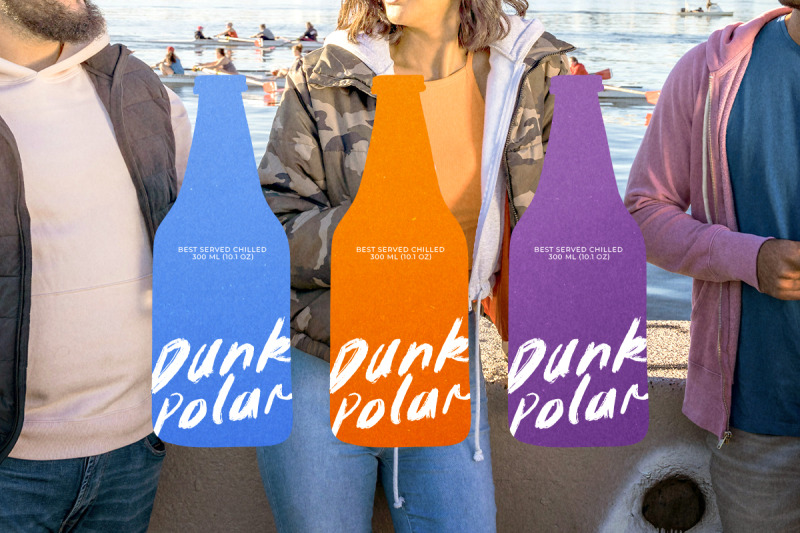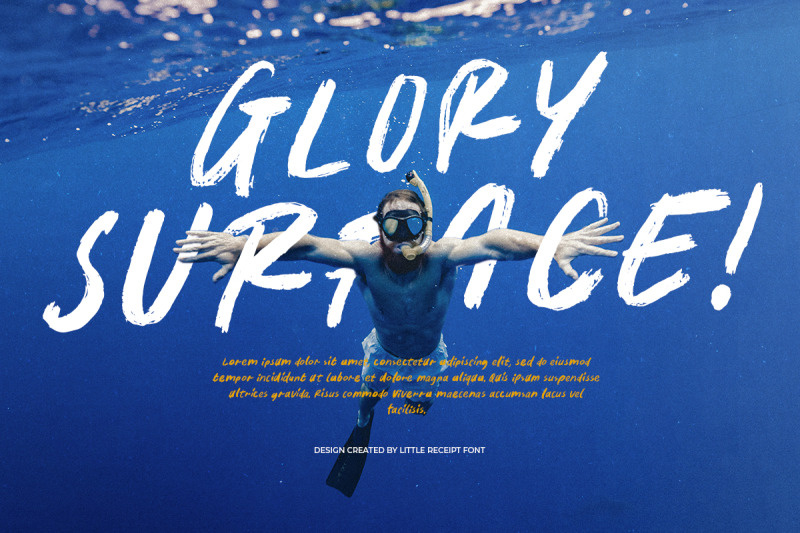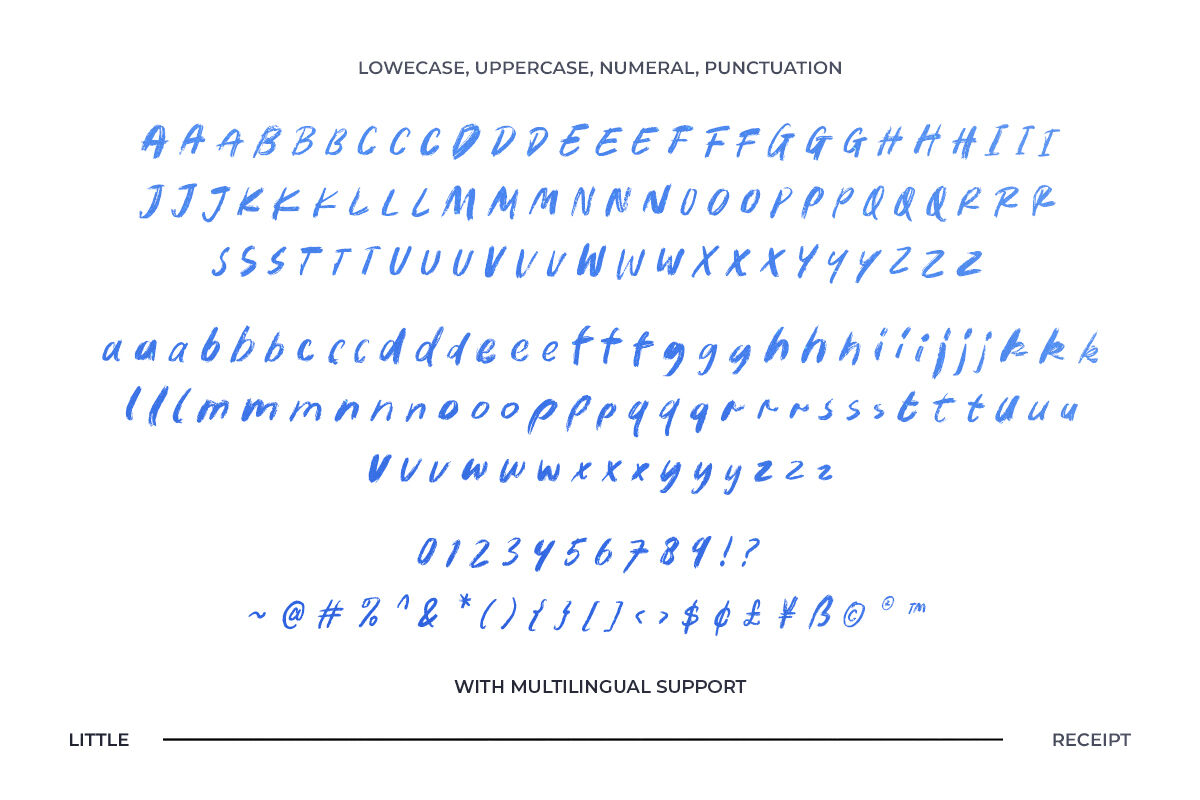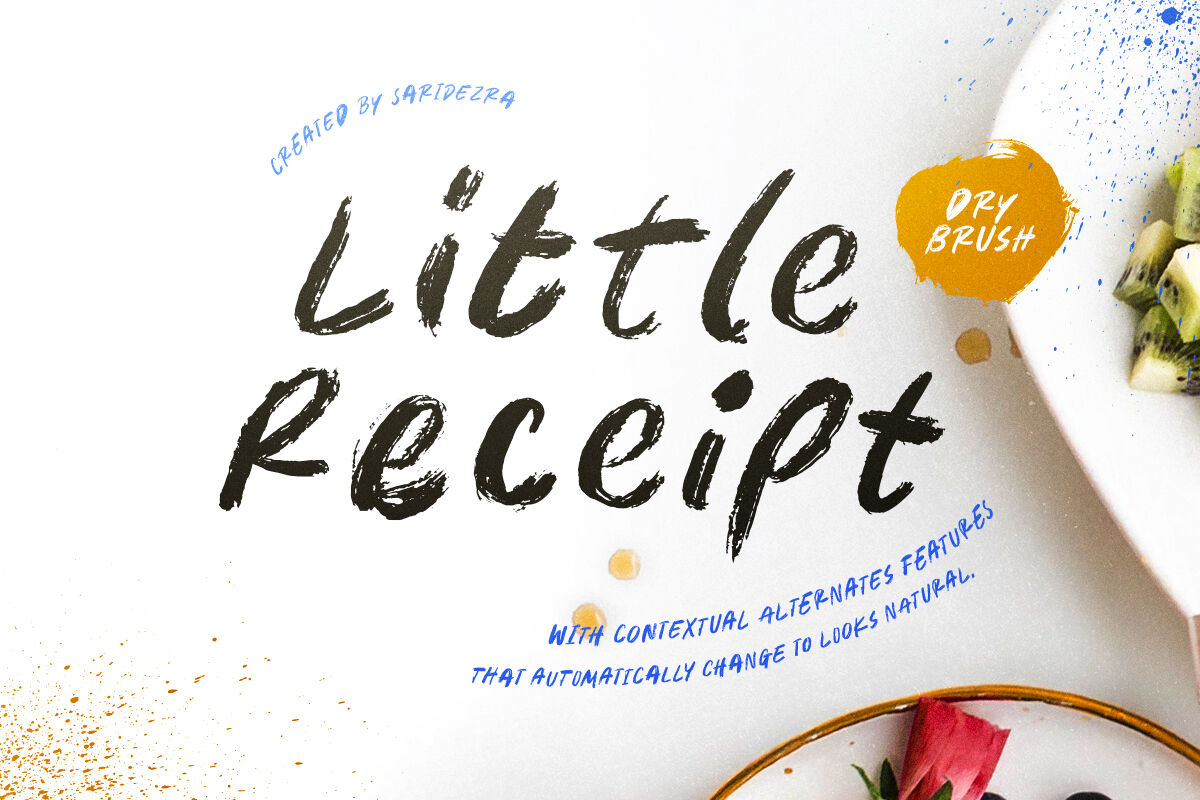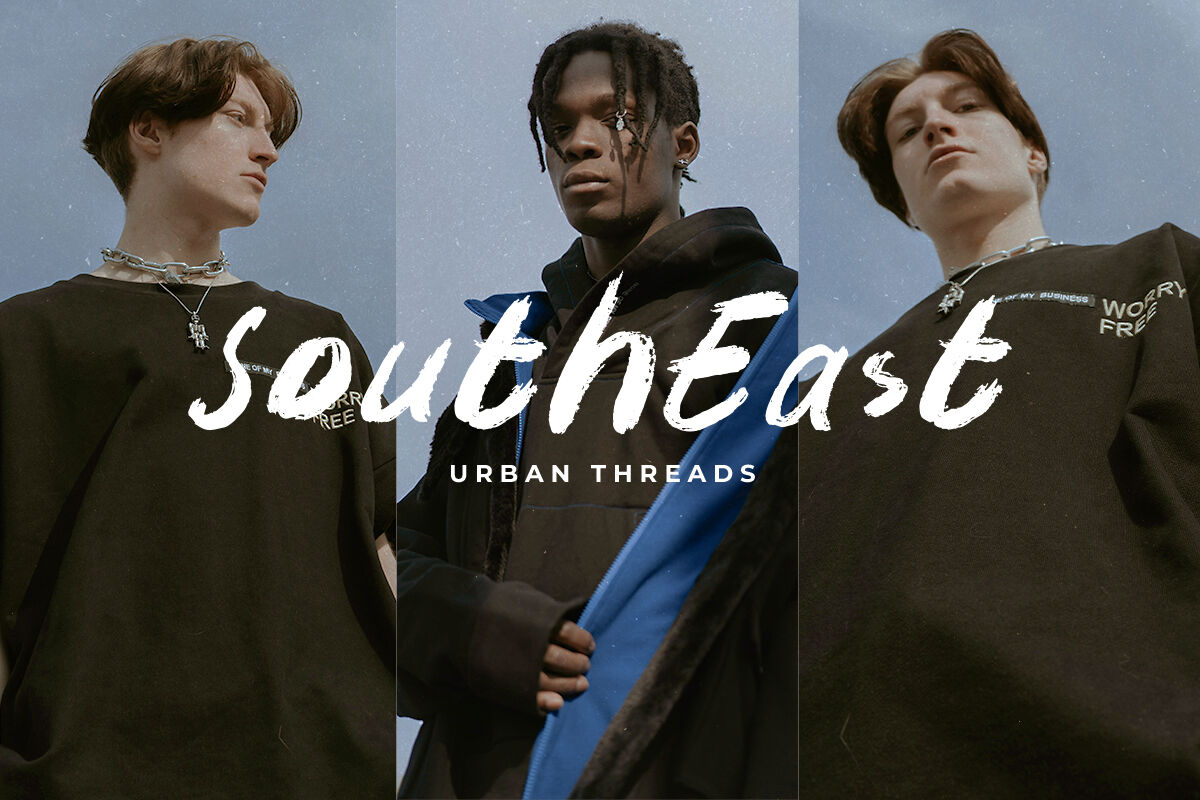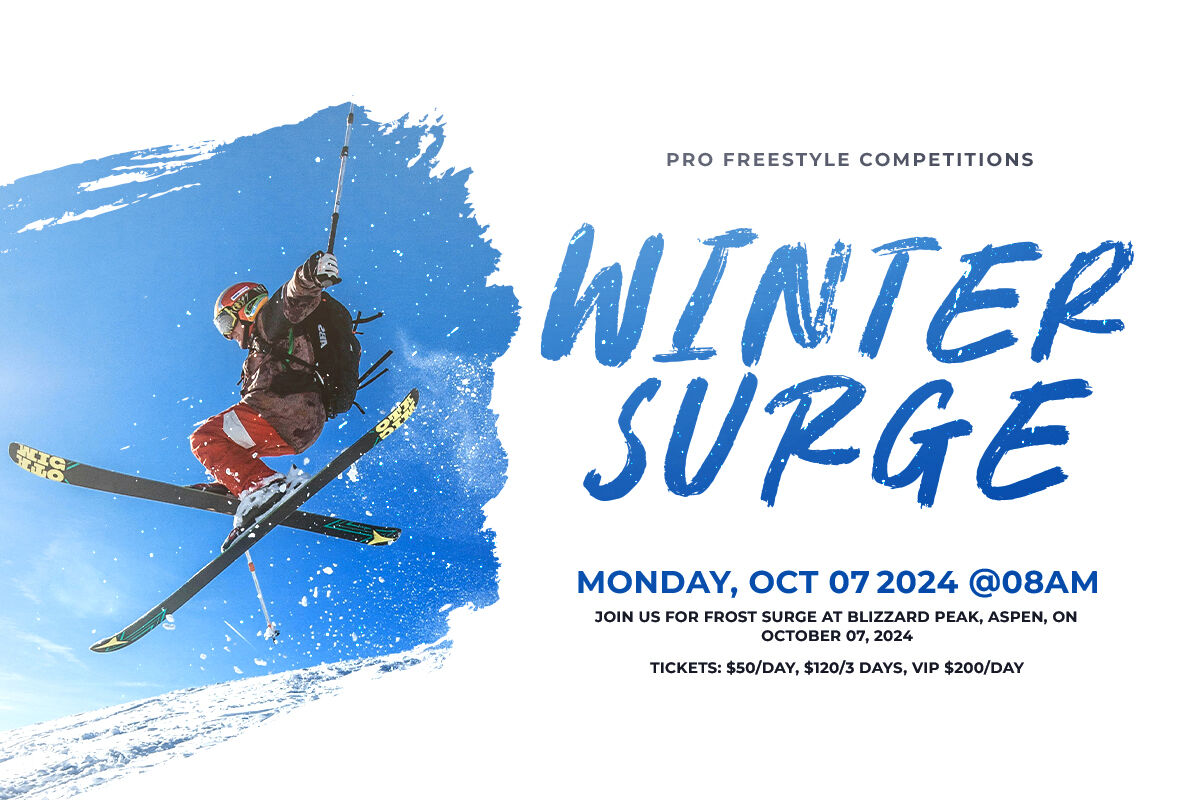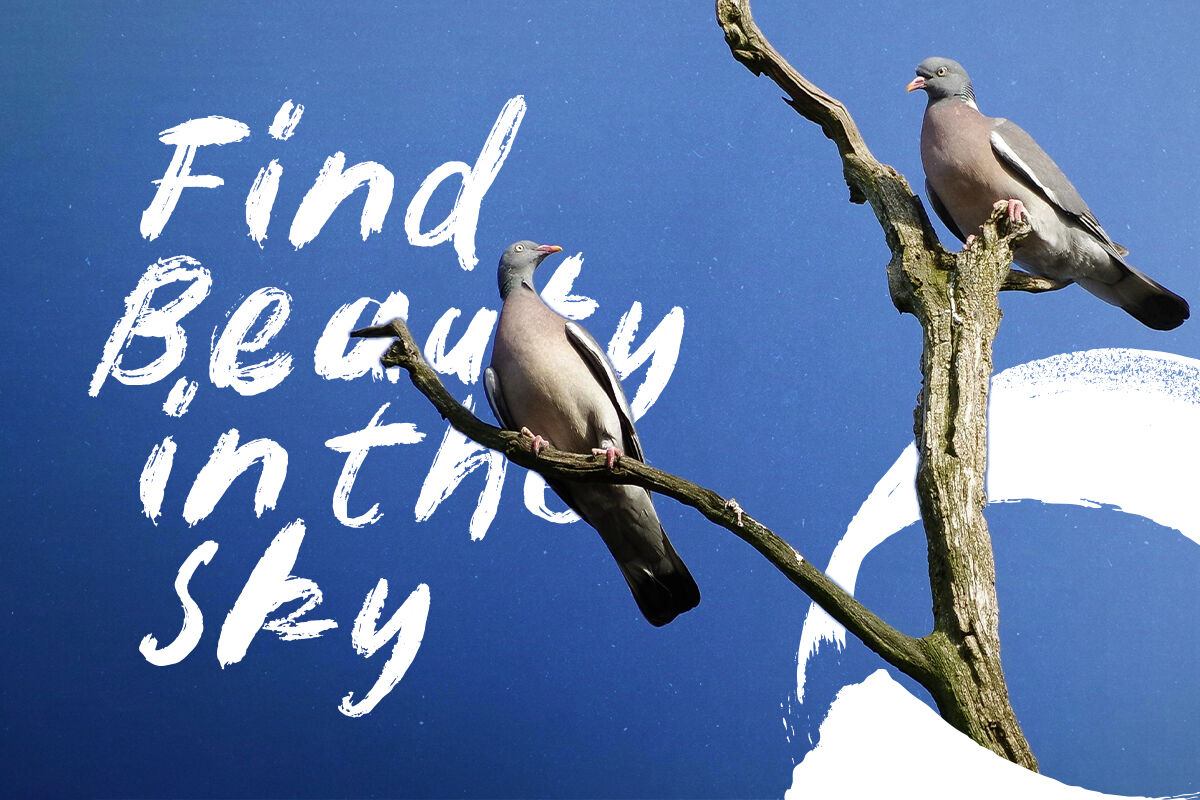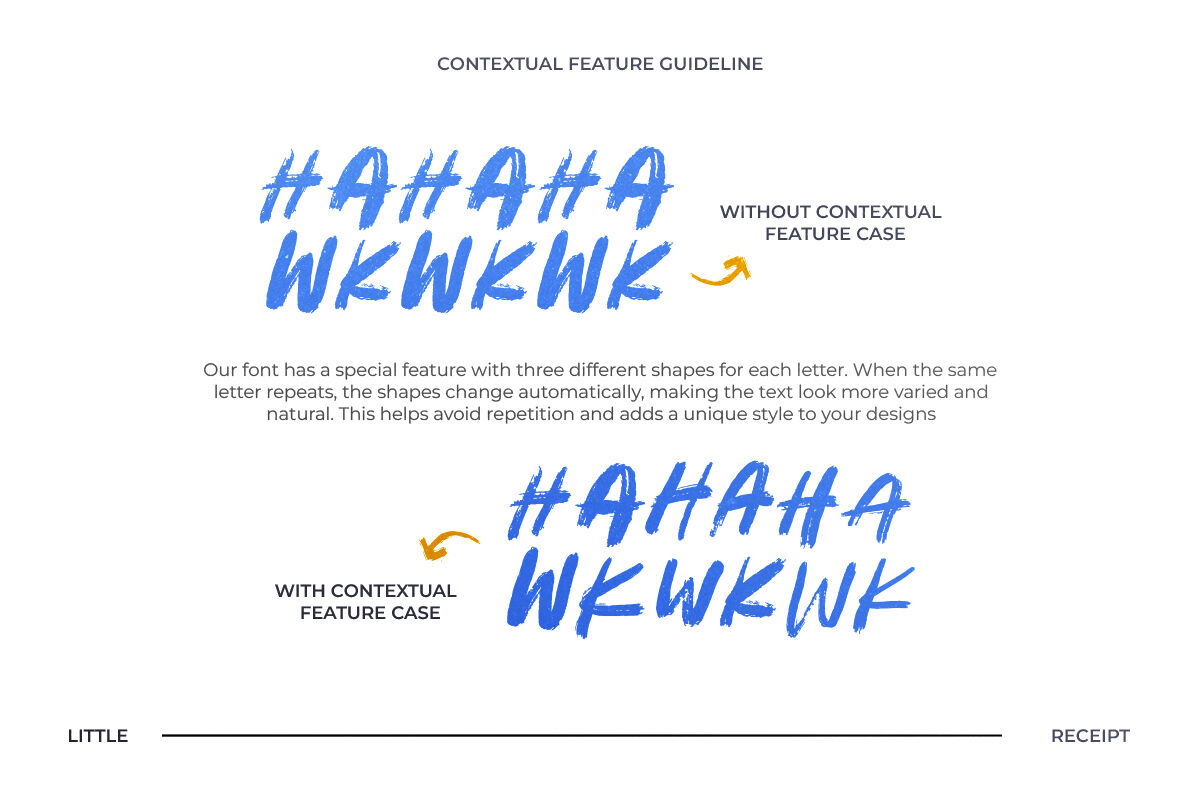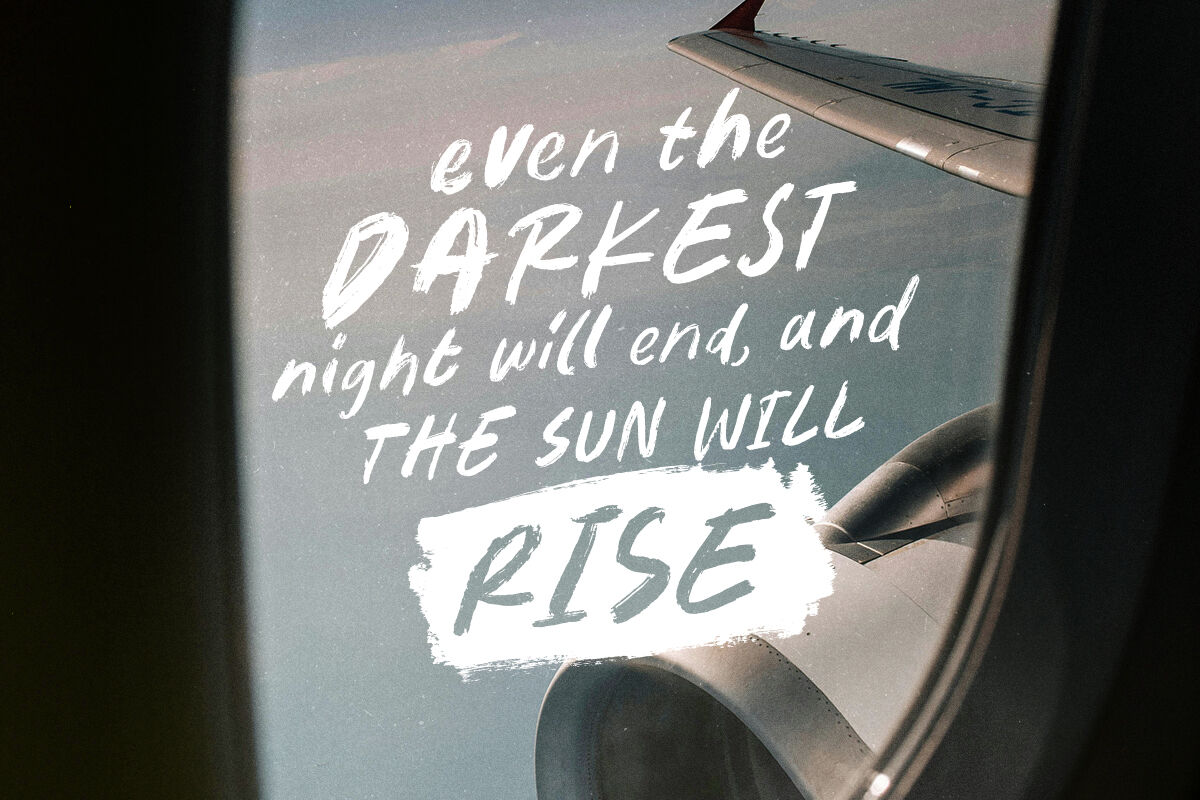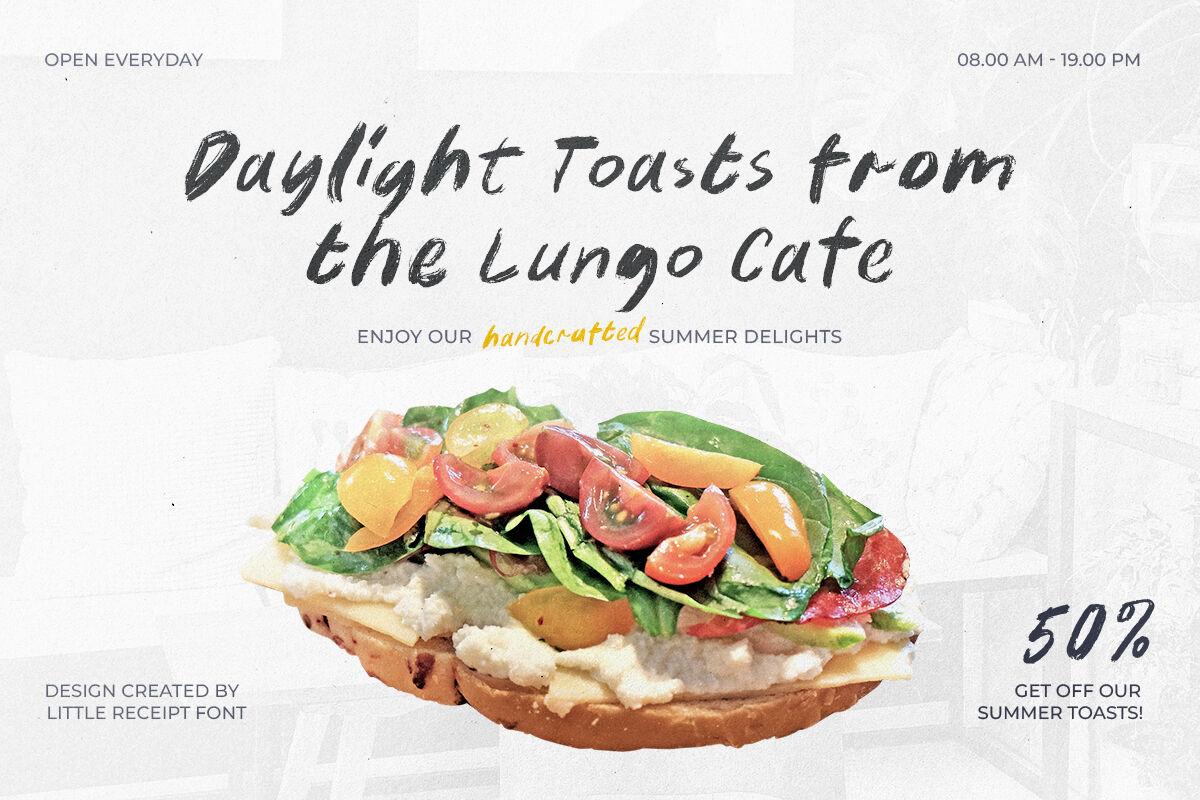
Little Receipt - Rough Brush Font
Little Receipt is a handwritten rough and dry brush font. It features three variations for each character that automatically change when you activated the Contextual Alternates in OpenType features in Adobe Photoshop or Illustrator. This will make your text or design looks more organic and natural. You can use this font for any purposes such as logo, slogan, especially for quotes. Little Receipt also supports multiple languages!